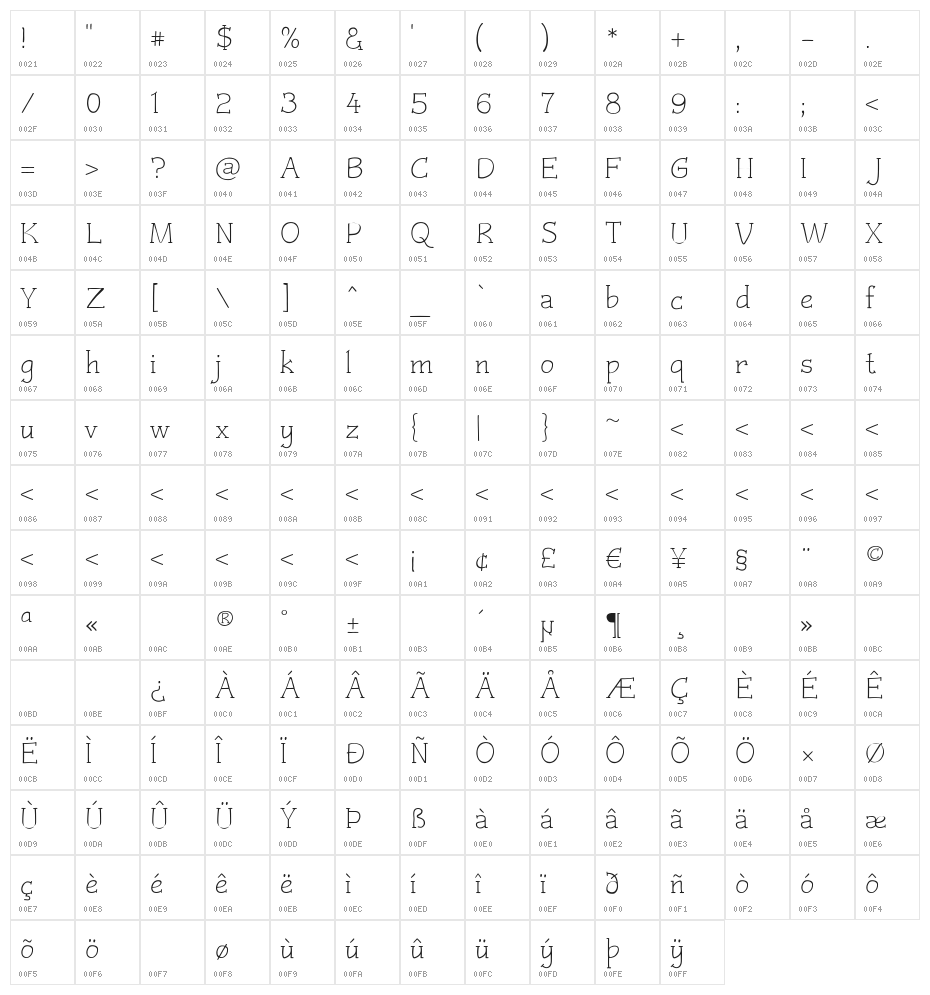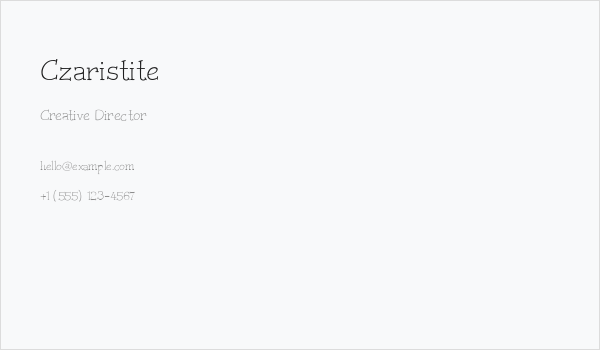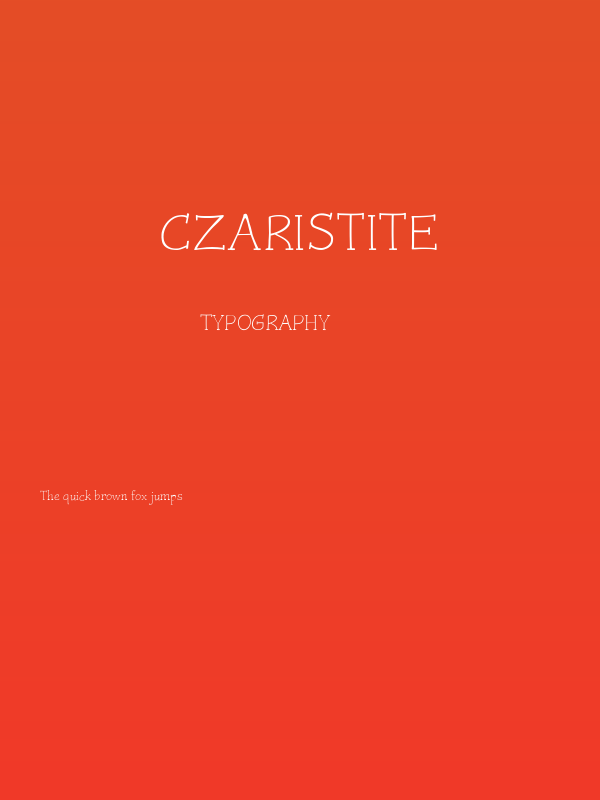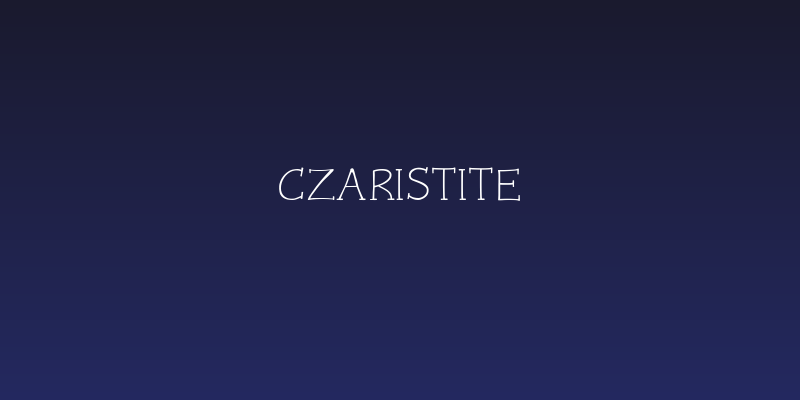
Czaristite Font
Czaristite Description
This font exhibits a unique blend of classic and modern elements, characterized by its elegant and slightly whimsical design. The uppercase letters are tall and slender, with a subtle flair that adds a touch of sophistication. The lowercase letters maintain a consistent style, with gentle curves and a playful bounce that gives the font a lively feel. The numerals are clear and legible, matching the overall aesthetic with their balanced proportions. Special characters are thoughtfully designed, maintaining the font's cohesive look. This typeface is versatile, suitable for both formal and creative applications.